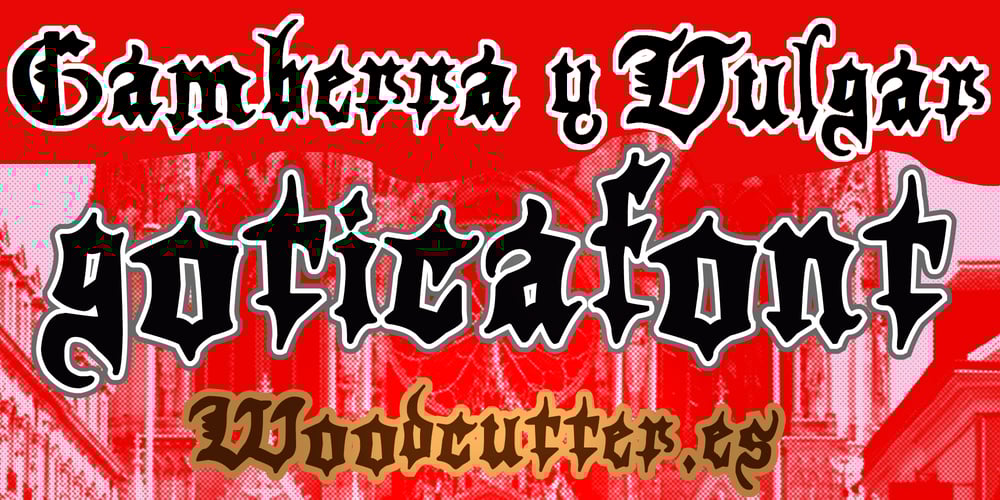
Gamberra Font Family was designed by Jordi Manero and published by Woodcutter. Gamberra contains 1 styles and family package options. “Gamberra” is a gothic font featuring both uppercase and lowercase letters with accents. Each character is characterized by a wavy design that ends in almost piercing points, creating a dramatic and dark aesthetic. Perfect for projects seeking a medieval or gothic style, this font brings an air of mystery and elegance. Ideal for titles, book covers, posters, and any design needing a touch of eerie sophistication. “Gamberra” is a bold choice that stands out.